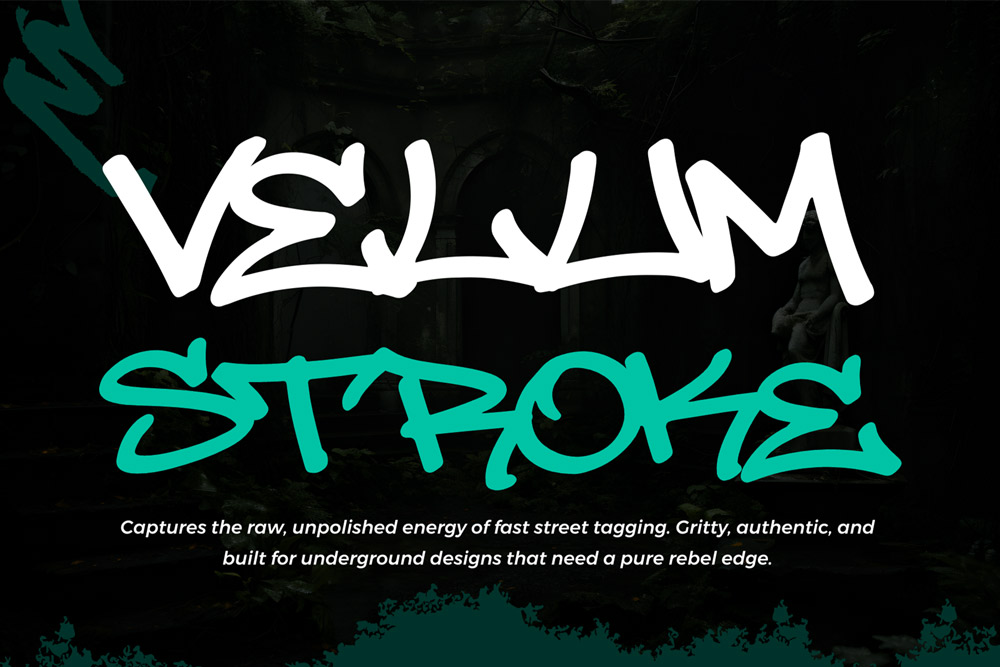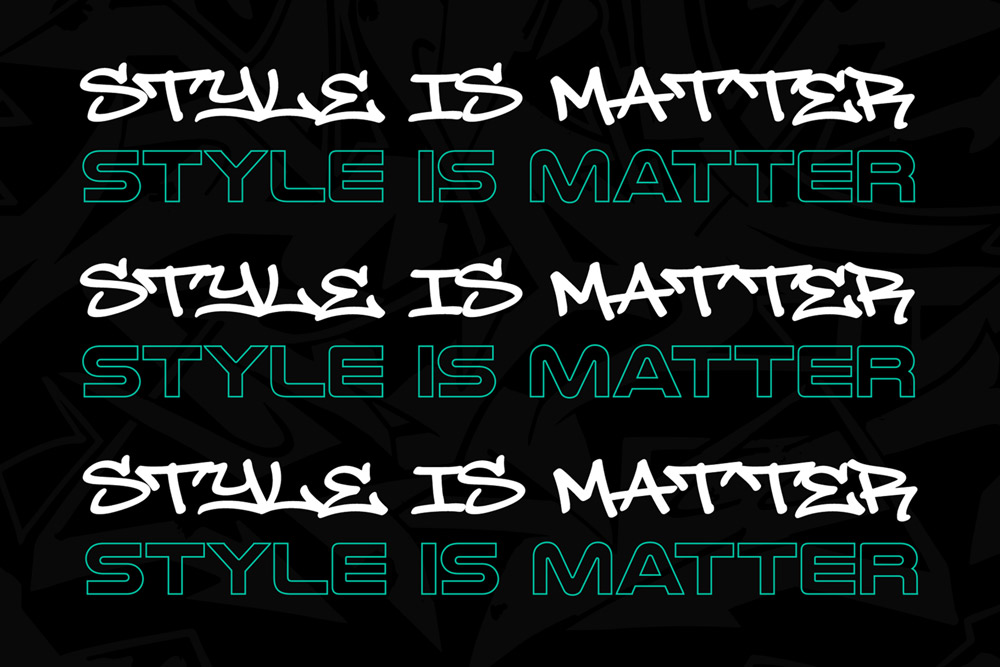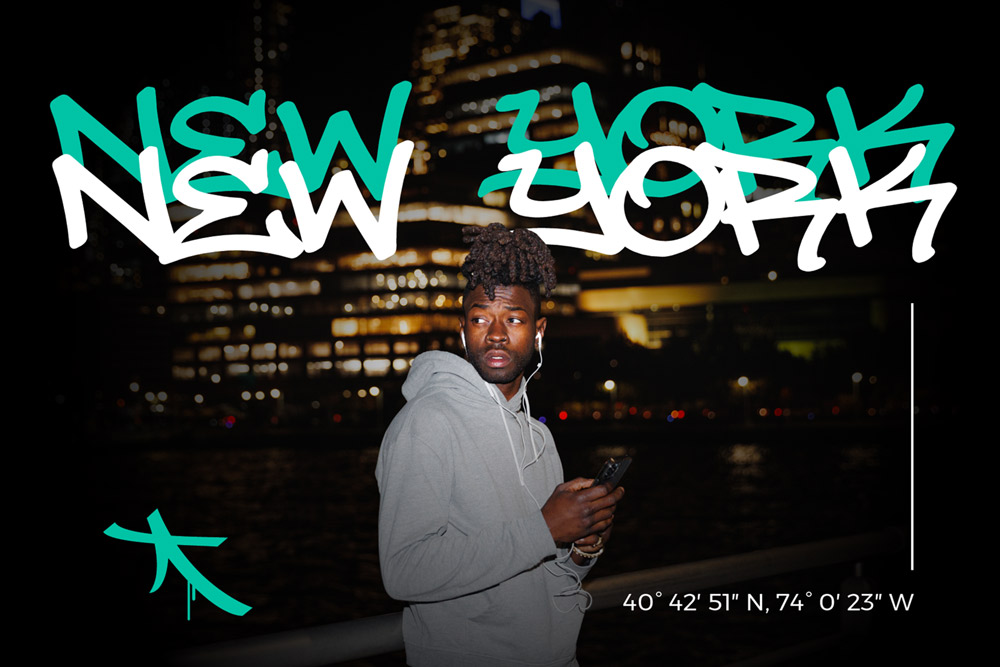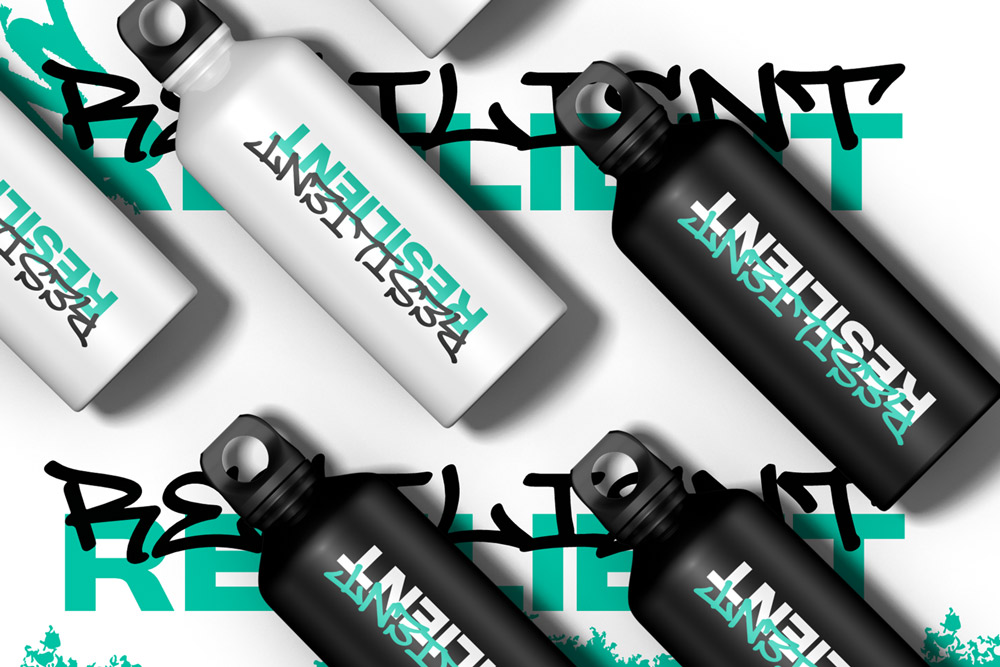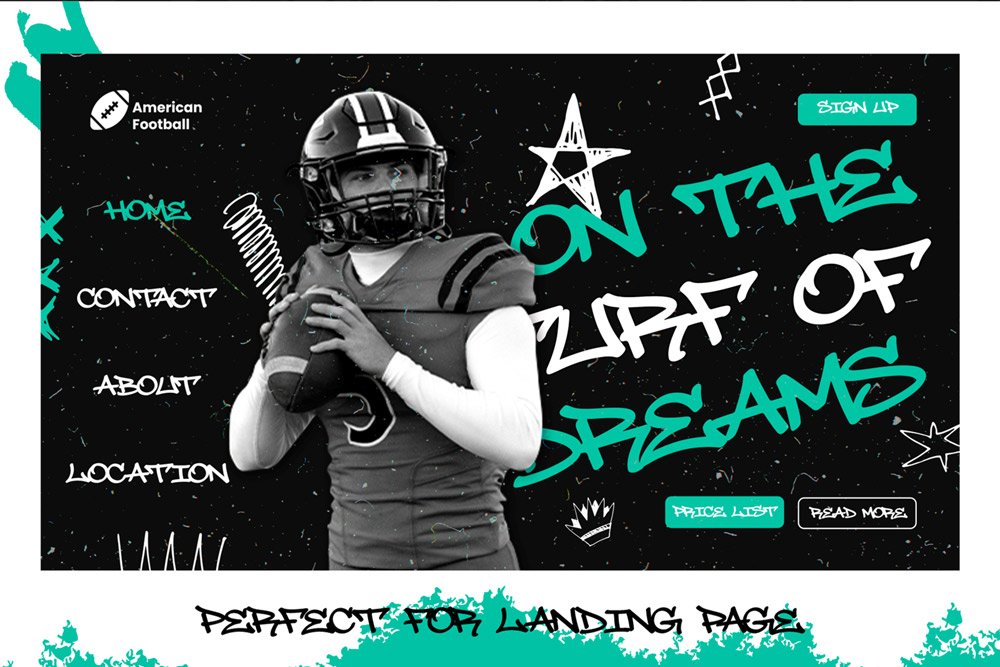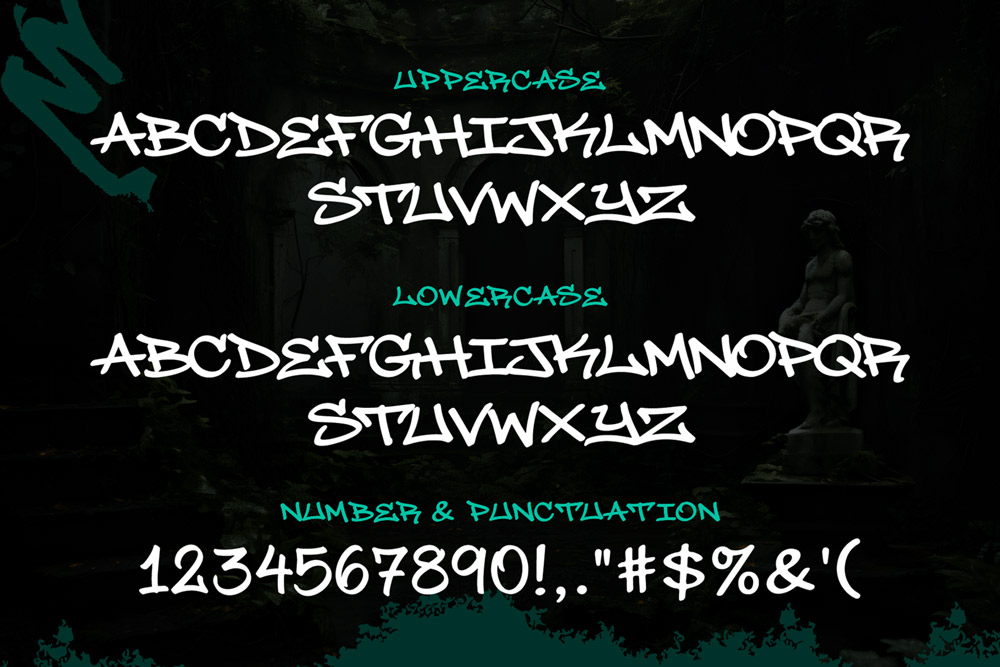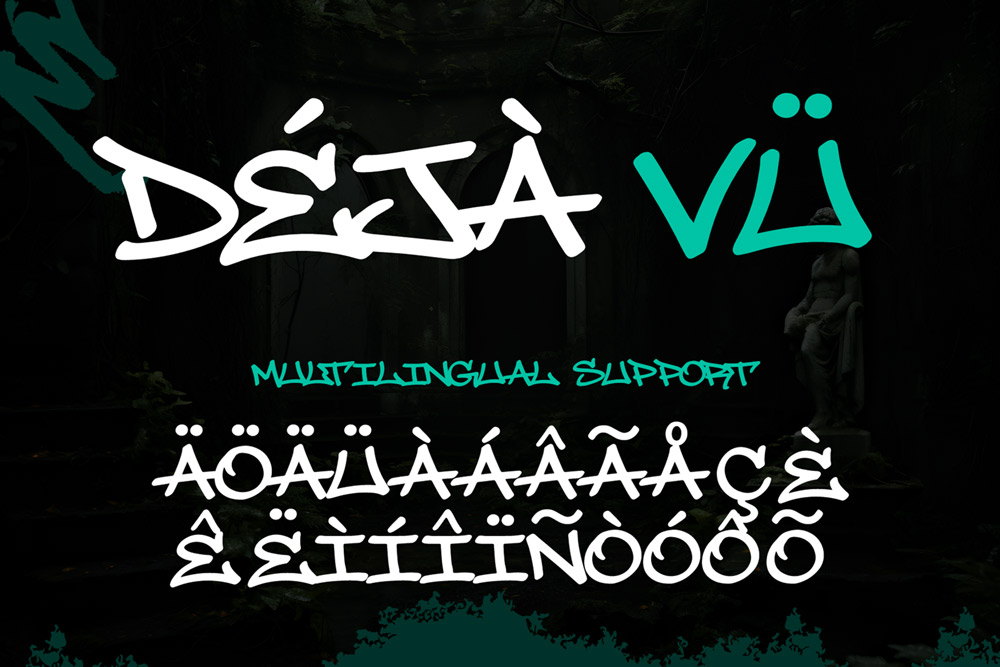
About Velum Stroke
Velum Stroke – Natural Handwritten Graffiti Tags Font is a raw and expressive graffiti typeface inspired by real handwritten street tags. Designed to capture the honest movement of marker strokes and spontaneous writing, this font delivers a natural graffiti look that feels personal, bold, and authentic. As a handwritten graffiti tags font, Velum Stroke is perfect for designers who want their work to reflect true urban culture without artificial effects.
Every letter in Velum Stroke graffiti font is crafted to preserve the imperfect beauty of hand lettering. The strokes flow freely, creating a natural rhythm that mirrors real graffiti writing found on city walls, skate spots, and underground spaces. This makes Velum Stroke an ideal choice for projects that demand originality, character, and street credibility.
Natural Handwritten Graffiti Font with Real Street Feel
What sets Velum Stroke – Natural Handwritten Graffiti Font apart is its honest approach to typography. Instead of exaggerated shapes or overly aggressive forms, this font focuses on genuine handwritten energy. The result is a graffiti font that feels raw yet clean, expressive yet readable.
With uppercase characters, Velum Stroke delivers strong visual impact while maintaining balance and clarity. Each letter looks like a real tag written with confidence, making it perfect for logos, titles, and bold statements. This handwritten graffiti font brings emotional depth to designs while keeping them professional and versatile.
Uppercase, Multilingual, Numbers & Punctuation
As a modern handwritten graffiti tags font, Velum Stroke is built with complete functionality for professional designers. It includes:
-
Uppercase Characters for bold, confident typography
-
Multilingual Support for broader international use
-
Numbers and Punctuation for full typographic coverage
This makes Velum Stroke suitable not only for artistic lettering but also for branding, packaging, posters, and commercial projects that require clarity and consistency.
Handwritten Graffiti Font for Streetwear & Urban Branding
Typography is a key element in streetwear and urban branding, and Velum Stroke graffiti handwriting font delivers a strong visual identity. Its natural handwritten style adds personality and authenticity, making designs feel exclusive and personal.
This font is ideal for:
-
Streetwear logos and fashion branding
-
T-shirt, hoodie, and merchandise designs
-
Music posters, album covers, and mixtape artwork
-
Skate, hip-hop, and underground culture visuals
-
Social media graphics and urban content creation
Velum Stroke works especially well for brands that want to appear raw, independent, and connected to real street culture.
-
Natural handwritten graffiti tags style
-
Uppercase characters with strong presence
-
Multilingual language support
-
Numbers and punctuation included
-
Clean yet raw handwritten appearance
-
Easy to use for print and digital projects
-
Perfect for streetwear, branding, posters, and social media
Why Designers Love Velum Stroke
Designers love Velum Stroke – Natural Handwritten Graffiti Font because it feels real. It doesn’t try to be overly decorative or artificial. Instead, it captures the true essence of handwritten graffiti — spontaneous, expressive, and full of personality.
Reasons designers choose Velum Stroke:
-
Authentic handwritten graffiti feel
-
Strong readability with natural flow
-
Perfect balance between raw and clean
-
Works well for logos and headlines
-
Easy to pair with heavier graffiti fonts
Velum Stroke allows designers to communicate emotion and identity through typography without sacrificing professionalism.
Created by Cikareotype Studio, Velum Stroke reflects a commitment to original graffiti typography and high-quality design. The font is suitable for personal and commercial projects, offering flexibility for creative professionals worldwide.
If you are looking for a handwritten graffiti font that feels natural, expressive, and genuinely street-inspired, Velum Stroke is the perfect choice. Let every stroke speak, let every word leave a mark, and let your design carry the soul of real graffiti culture.